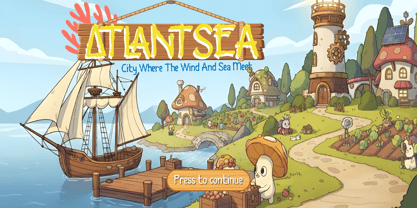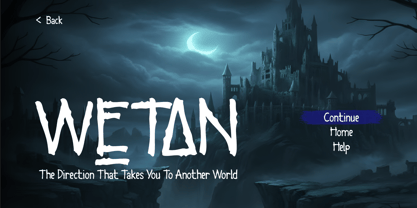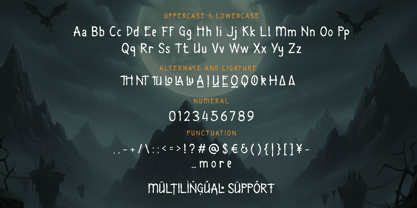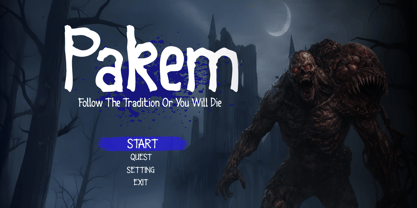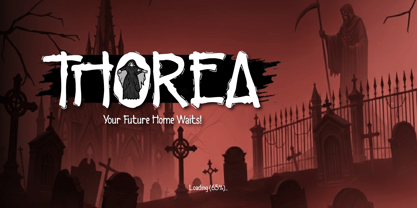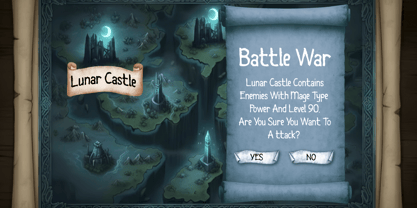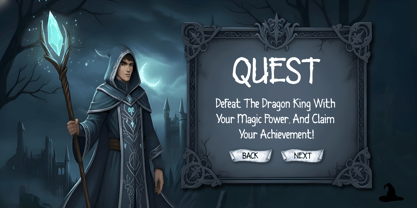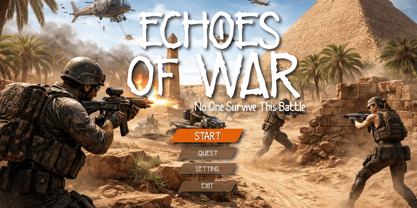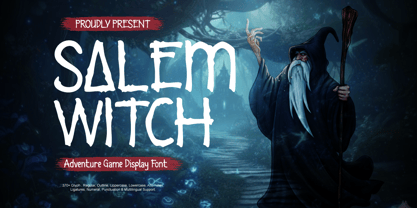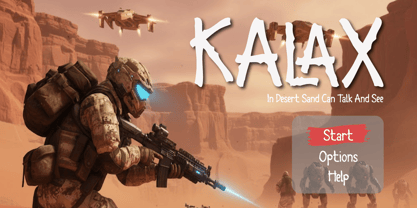
Salem Witch is a bold, hand-drawn display font designed to deliver a high-impact visual experience across various creative genres. Featuring rugged, organic edges and a commanding presence, this typeface captures the essence of mystical legends and epic quests. While its roots lie in dark fantasy and witchcraft themes, the font's unique anatomy allows it to adapt seamlessly to modern action settings, historical narratives, and even whimsical adventure styles. It is a perfect choice for designers looking to create an immersive atmosphere that feels both ancient and timeless.
This font is highly optimized for Game UI/UX and Cinematic Branding. As shown in the previews, Salem Witch excels in diverse applications—from gritty horror titles and military combat interfaces to enchanting world maps and story-driven quest logs. With over 370+ glyphs, including uppercase, lowercase, unique alternates, and ligatures, you have the creative freedom to craft custom typography that stands out. The inclusion of a dedicated Outline style further expands its utility, allowing for dynamic layering and sophisticated hierarchy in posters, logos, and digital displays.